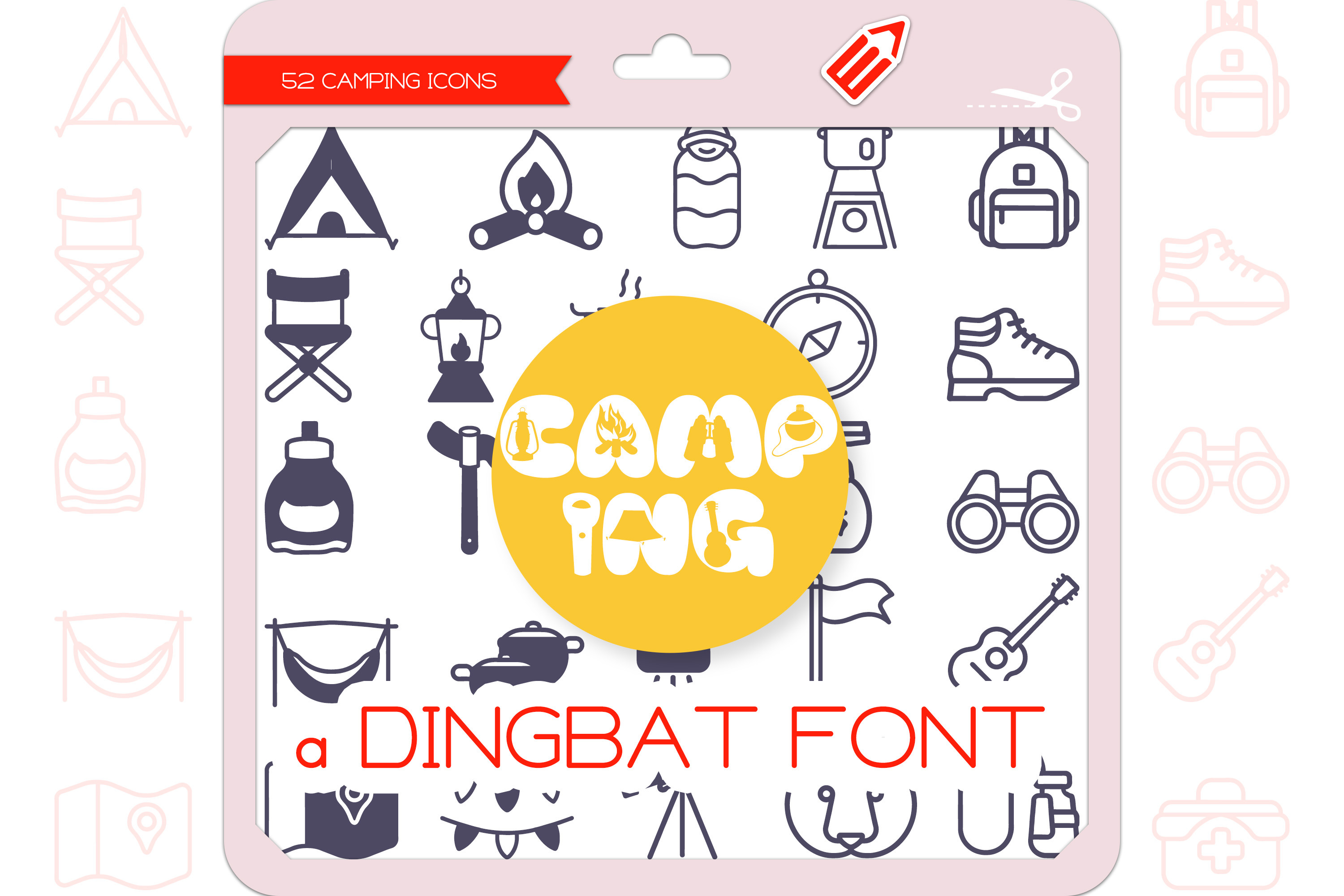
Camping Icons - Dingbat Font
Camping is a unique and cute dingbat font. It contains 52 icons in 2 styles (Outline & Filled-Outline). Add this font to your creative ideas and make your arts outstanding!
The Camping Icons Dingbat Font featuring 26 things Tent, Campfire, Sleeping Bag, Camp Stove, Backpack, Camping Chair, Camp Lantern, Camping Grill, Compass, Hiking Boots, Water Bottle, Camp Axe, Camp Cooking Pot, Insect Repellent, Binoculars, Camp Hammock, Camp Cookware Set, Camp Shower, Camp Flag, Camp Guitar, Camp Map, Camp Bunting, Camp Telescope, Camp Wildlife, Camp Water Filter, Camp First Aid Kit